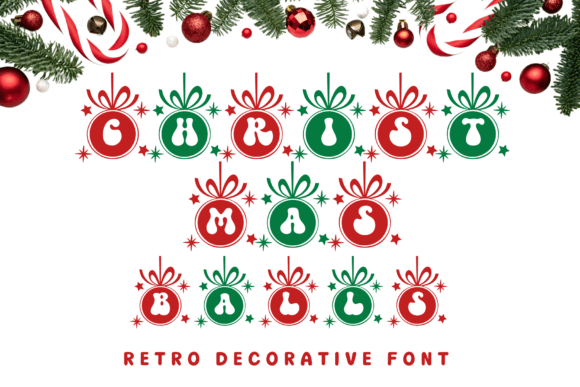
Christmas Balls Retro Font: A Festive and Elegant Typeface for Holiday Designs
The Christmas balls retro Decorative font is a festive and elegant typeface that brings the charm of holiday baubles to your designs. Each letter is intricately designed with Christmas ball ornaments, making it perfect for seasonal projects, from greeting cards to holiday decor.
What is Christmas Balls Retro Font?
Christmas Balls Retro Font is a unique and creative typeface that combines the classic look of Christmas balls with a retro aesthetic. The font features beautifully designed letters, each adorned with intricate Christmas ball ornaments, giving it a festive and celebratory feel.
Key Features of Christmas Balls Retro Font
- Intricate Design: Each letter in the Christmas Balls Retro Font is intricately designed with Christmas ball ornaments, making it a standout typeface for holiday designs.
- Festive and Elegant: The font exudes a festive and elegant feel, perfect for creating holiday-themed designs that are both sophisticated and fun.
- Retro Aesthetic: The retro aesthetic of the font adds a touch of nostalgia and vintage charm to your designs.
- Versatile: Christmas Balls Retro Font can be used for a wide range of holiday projects, from greeting cards and invitations to holiday decor and advertising.
Uses of Christmas Balls Retro Font
Christmas Balls Retro Font is a versatile typeface that can be used for various holiday projects, including:
- Greeting Cards: Create festive and personalized greeting cards for Christmas, Hanukkah, or other holiday celebrations.
- Holiday Decor: Use the font to create holiday-themed decor, such as wrapping paper, gift tags, and holiday signage.
- Invitations: Design elegant and festive invitations for holiday parties, events, and gatherings.
- Advertising: Use Christmas Balls Retro Font in holiday-themed advertising campaigns to add a touch of festivity and fun.
Tips for Using Christmas Balls Retro Font
Here are some tips for using Christmas Balls Retro Font effectively in your designs:
- Pair with Neutral Backgrounds: Pair the font with neutral backgrounds to make the intricate design of the letters stand out.
- Experiment with Colors: Experiment with different colors to find the perfect combination that matches your holiday theme.
- Use for Headlines: Use Christmas Balls Retro Font for headlines and titles to add a touch of festivity and elegance.
- Mix with Other Fonts: Mix the font with other complementary fonts to create a unique and visually appealing design.
Benefits of Using Christmas Balls Retro Font
Using Christmas Balls Retro Font in your holiday designs offers several benefits, including:
- Unique and Creative: The font offers a unique and creative way to add a festive touch to your designs.
- Elegant and Sophisticated: The font exudes an elegant and sophisticated feel, perfect for high-end holiday designs.
- Time-Saving: Using a pre-designed font saves time and effort in creating custom holiday designs.
- Scalable: The font is scalable, making it suitable for various design applications, from business cards to billboards.
Christmas Balls Retro Font is a festive and elegant typeface that brings the charm of holiday baubles to your designs. With its intricate design, retro aesthetic, and versatility, it’s perfect for creating holiday-themed designs that are both sophisticated and fun. Whether you’re designing greeting cards, holiday decor, or advertising campaigns, Christmas Balls Retro Font is a great choice for adding a touch of festivity and elegance to your designs.